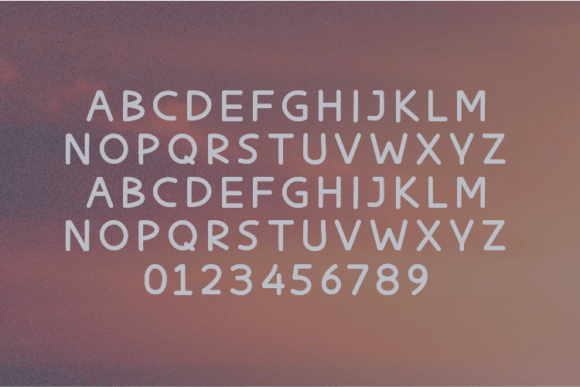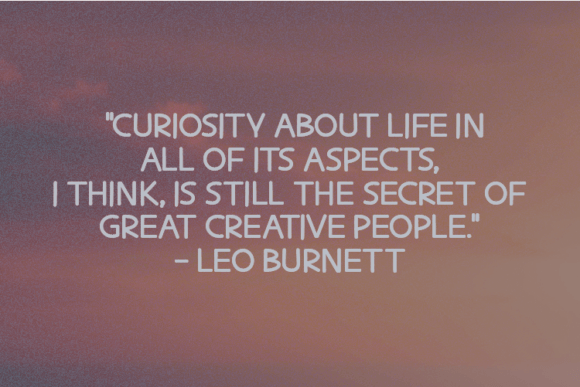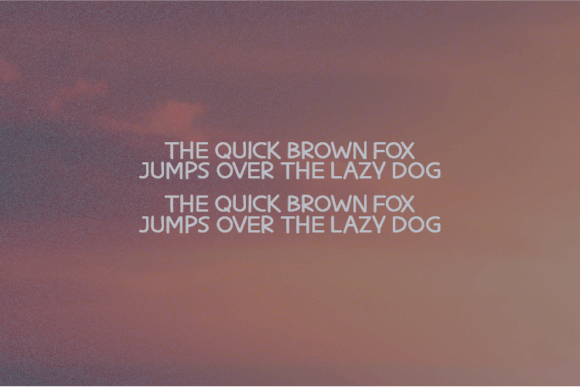
The Electrifying World of Fonts
Have you ever been working on a project, staring at a blank page or screen, trying to find the perfect font to bring your idea to life? The struggle is real, but it’s also what makes the moment of discovery so exhilarating. For designers, finding that perfect font can be a game-changer.
Enter the Electra Font, a natural sans serif font that’s making waves in the design world. Unlike other fonts, Electra was crafted without altering a single node in each character’s indentation, giving it a unique and organic feel. This attention to detail makes Electra Font the perfect choice for quotes, notes, tees, and any product design that needs a touch of elegance and sophistication.
Key Features of Electra Font
- Font Family: Electra is a sans-serif font family designed by Carol Twombly, and it is available in multiple weights.
- Font Sizes: The font family includes a range of font sizes from 8pt to 72pt, making it suitable for various applications.
- Resolution: Electra Font supports resolutions up to 1200 dpi, ensuring high-quality text rendering.
- Unique Characteristics: Electra Font is known for its modern, clean design and high legibility, making it an ideal choice for digital and print media.
- Weight Variations: The font family includes various weights, including Light, Regular, Medium, Demi, and Bold, allowing for flexibility in typography.
Design Review: Electra Font
Electra Font is a sleek and modern sans-serif typeface designed for digital use. The font’s clean lines and rounded edges make it a great choice for anyone looking to create a professional and approachable visual identity. ✨ One of the standout features of Electra is its excellent legibility at various font sizes, making it perfect for use in web and mobile applications.
However, there are a few limitations to consider. ⚠️ Firstly, the font’s lack of bold weight options may limit its use in situations where a strong emphasis is required. Additionally, some users may find the font’s rounded edges to be too soft or cursive-like, which may not be suitable for all design applications.
Here are some key features and limitations to consider:
- Excellent legibility at various font sizes ✨
- Lack of bold weight options ⚠️
- Rounded edges may be too soft or cursive-like for some users ⚠️
- Designed for digital use, may not be suitable for print applications
Overall, Electra Font is a solid choice for designers looking to create a clean and modern visual identity. While it may have some limitations, its excellent legibility and sleek design make it a great addition to any design toolkit.
Getting the Most Out of Electra Font
To get the most out of the Electra font, consider the following tips:
- Use it for titles and headings to add a touch of elegance and sophistication
- Pair it with bold and sans-serif fonts for a modern look
- Experiment with different font sizes and colors to create visual interest
The Electra font is commonly used for:
- Logo design
- Brand identity
- Print materials (e.g. business cards, brochures, etc.)
- Digital marketing materials (e.g
Alternatives to Electra Font
Inter Font
The Inter Font is a modern sans-serif typeface designed by Rasmus Andersson. It’s a great alternative to Electra Font, especially for digital interfaces. Inter Font is clean, simple, and highly legible, making it perfect for body text and titles. When to use: Digital interfaces, apps, and websites.
Inter Font and Electra Font share similar design principles, but Inter Font has a more geometric and minimalist approach. Inter Font is also more suitable for large-scale digital interfaces, while Electra Font is more versatile and can be used in print and digital formats.
The Montserrat Font is a sans-serif typeface designed by Julieta Ulanovsky. It’s a great alternative to Electra Font for titles and headings, especially in urban and industrial contexts. Montserrat Font is highly customizable and has a wide range of weights and styles. When to use: Titles, headings, and urban-themed designs.